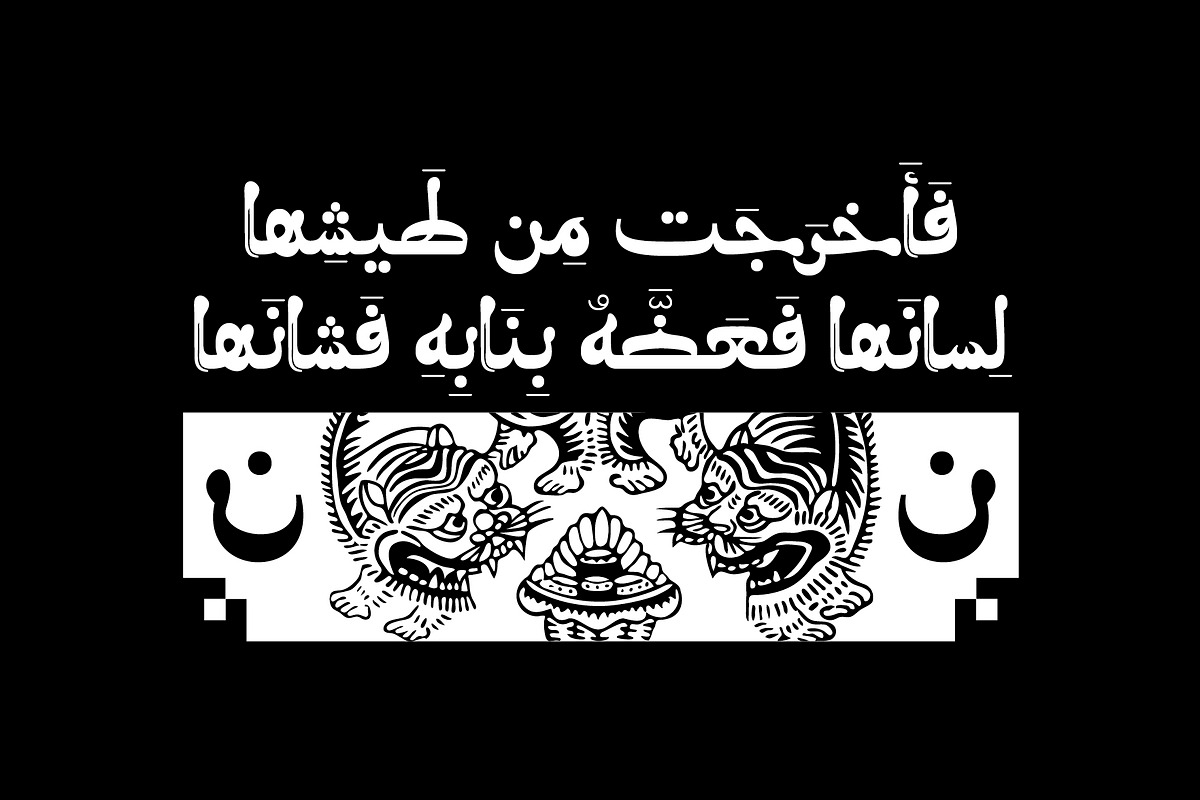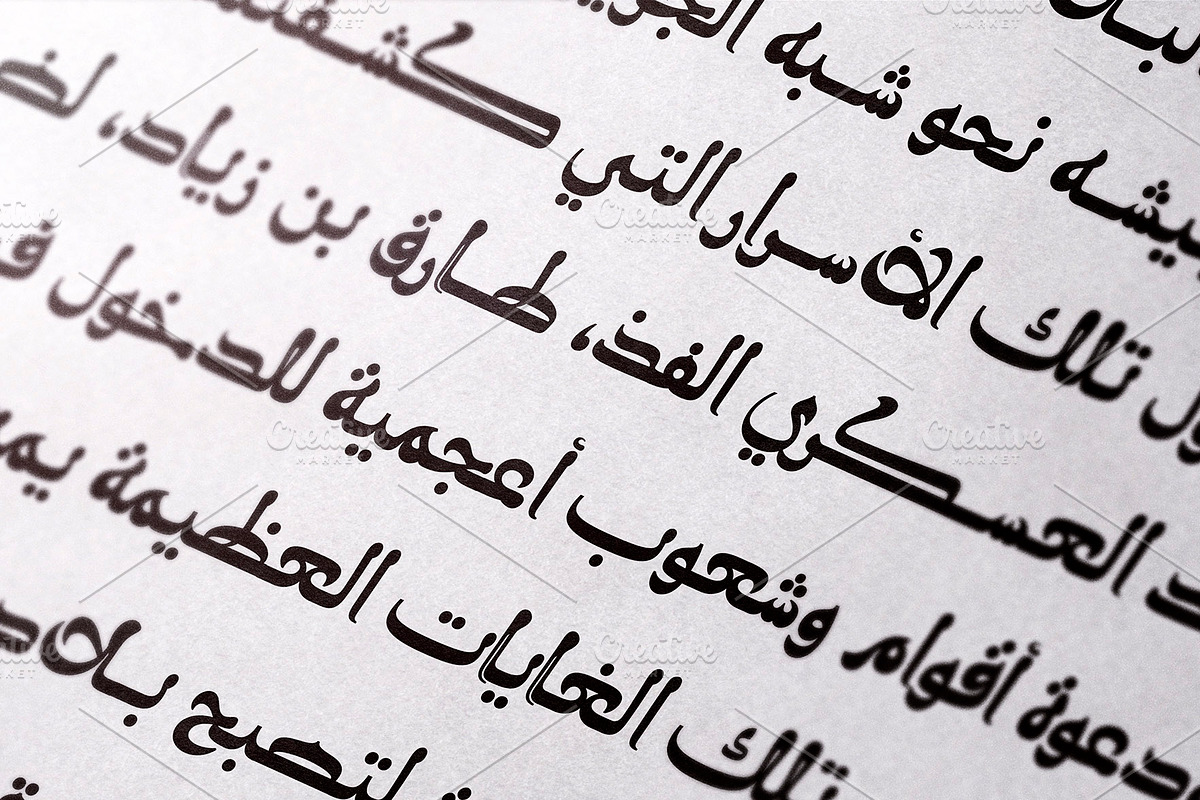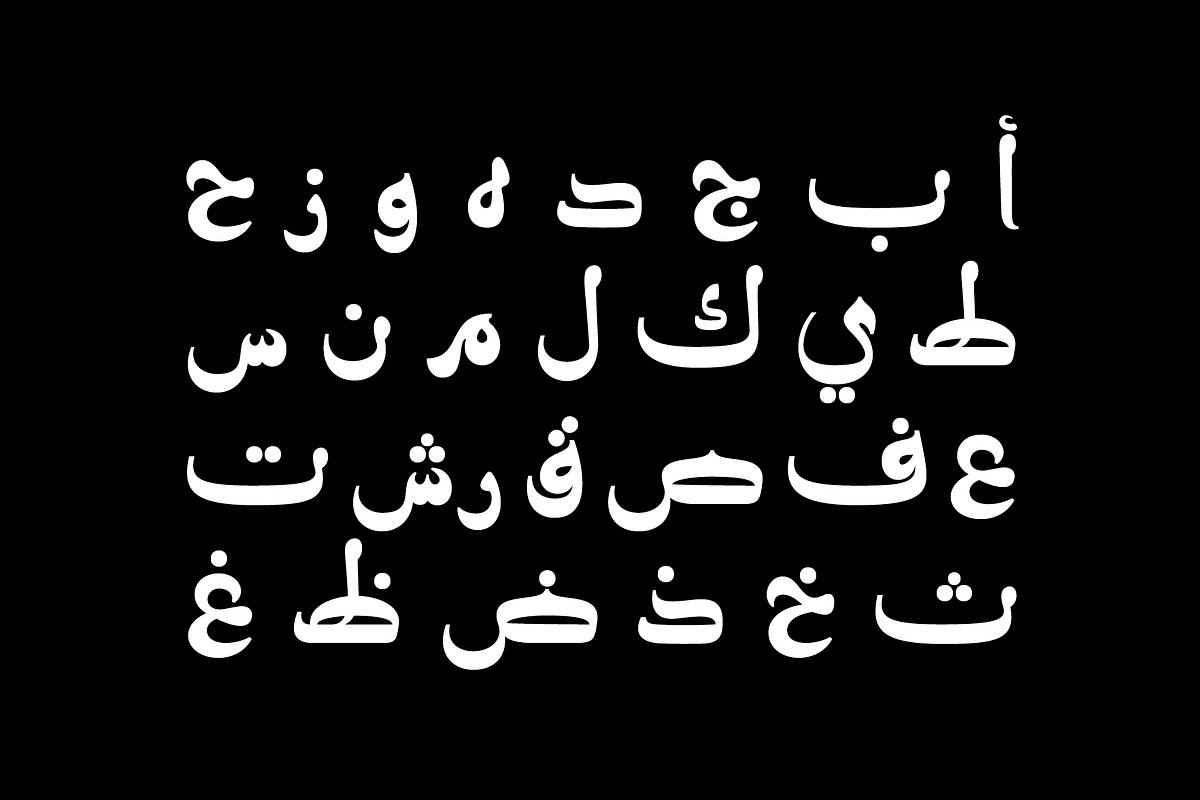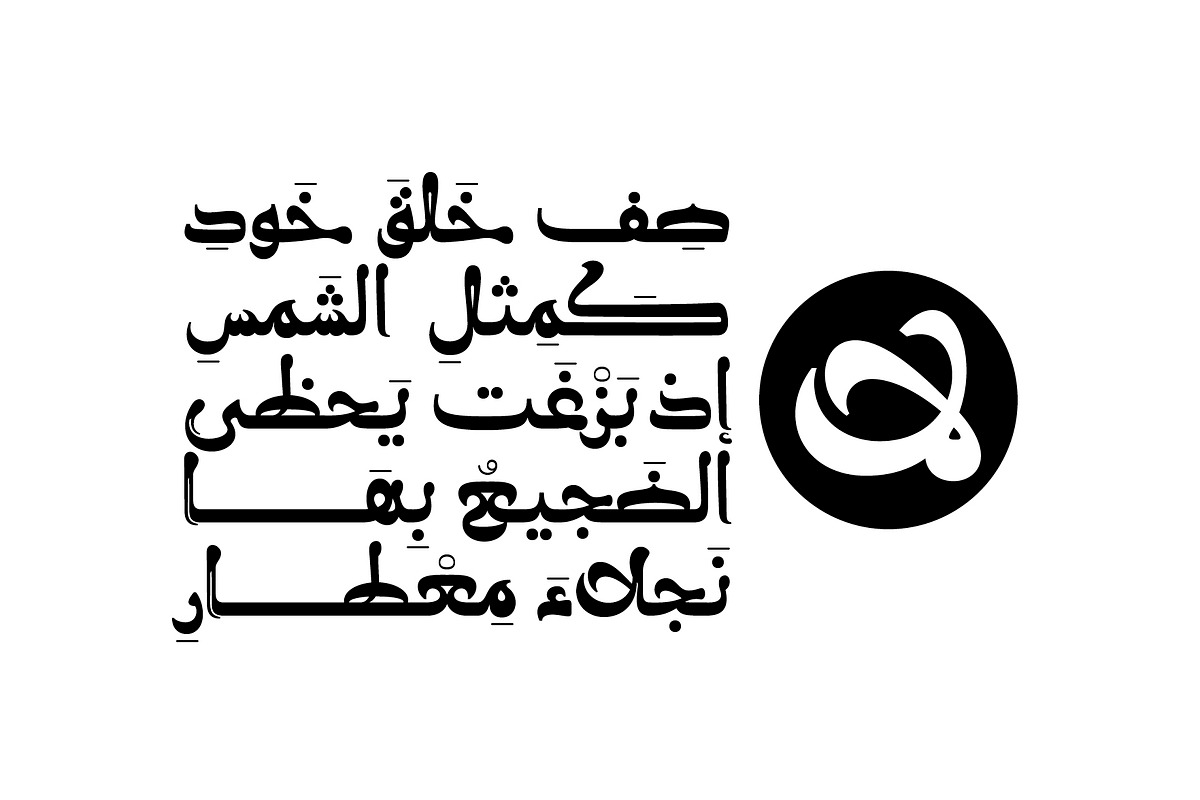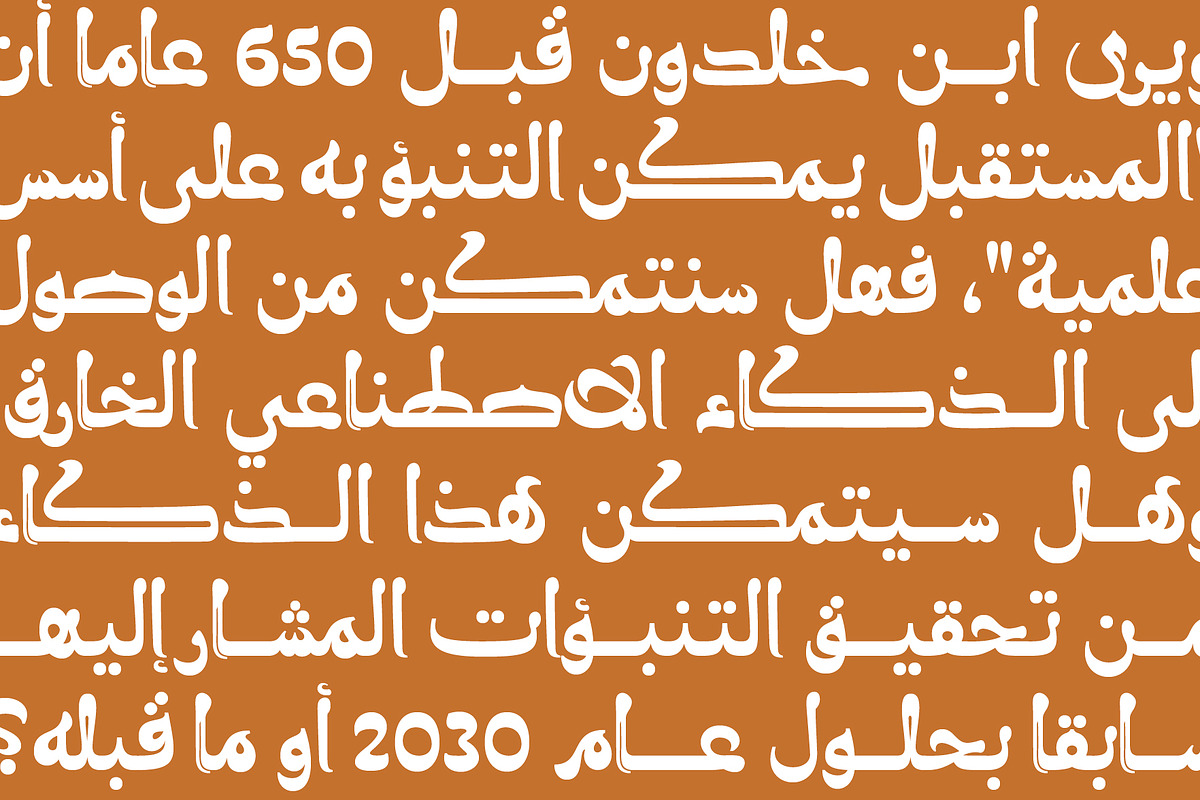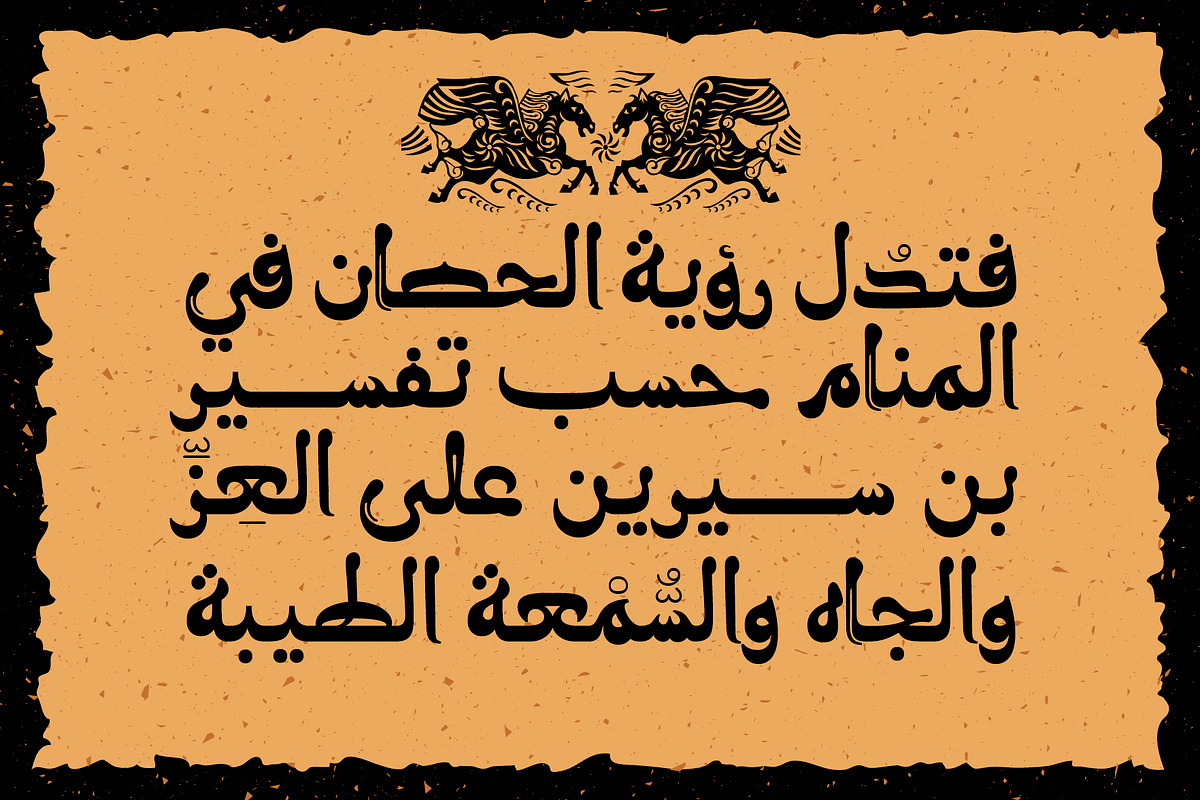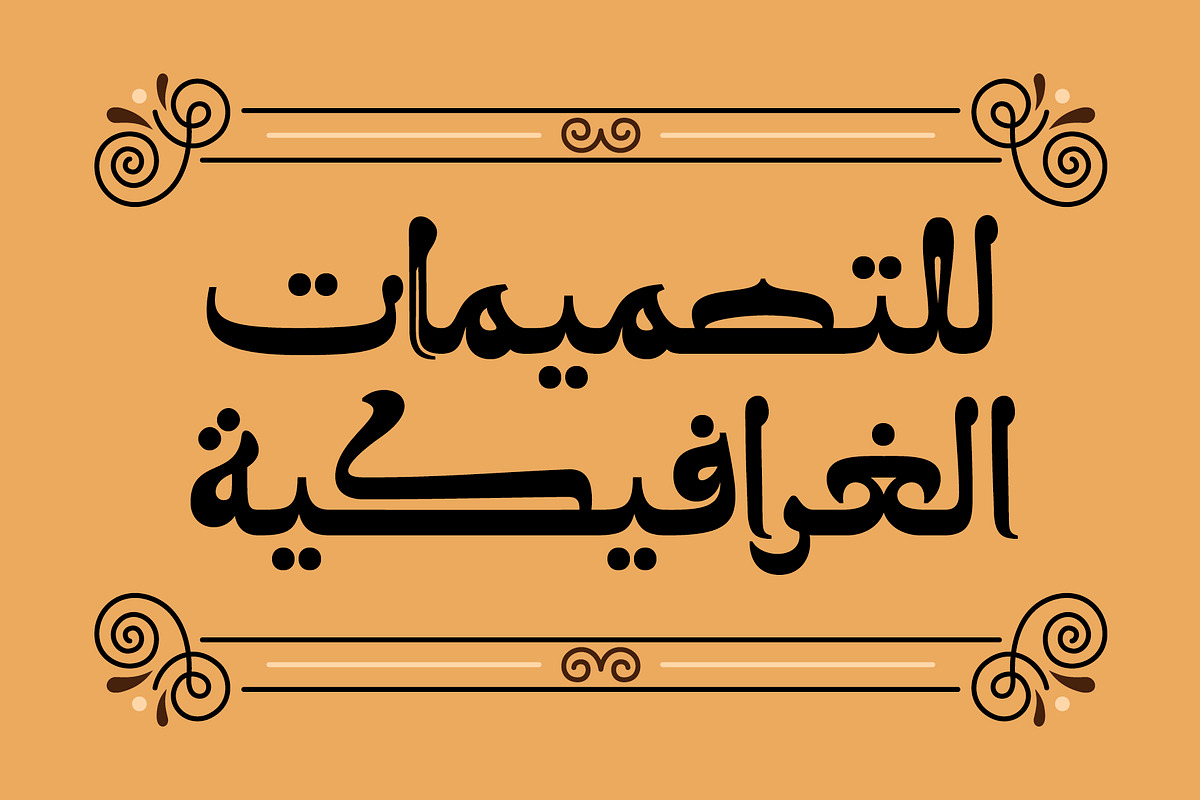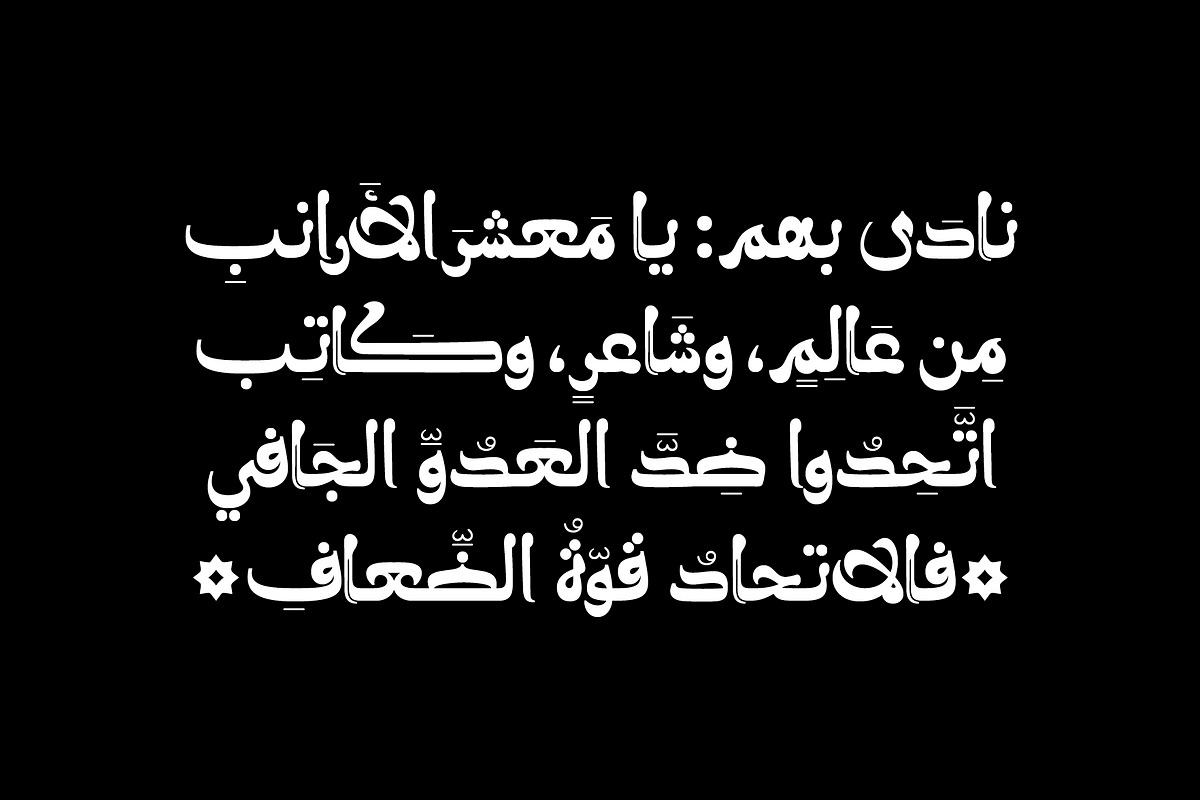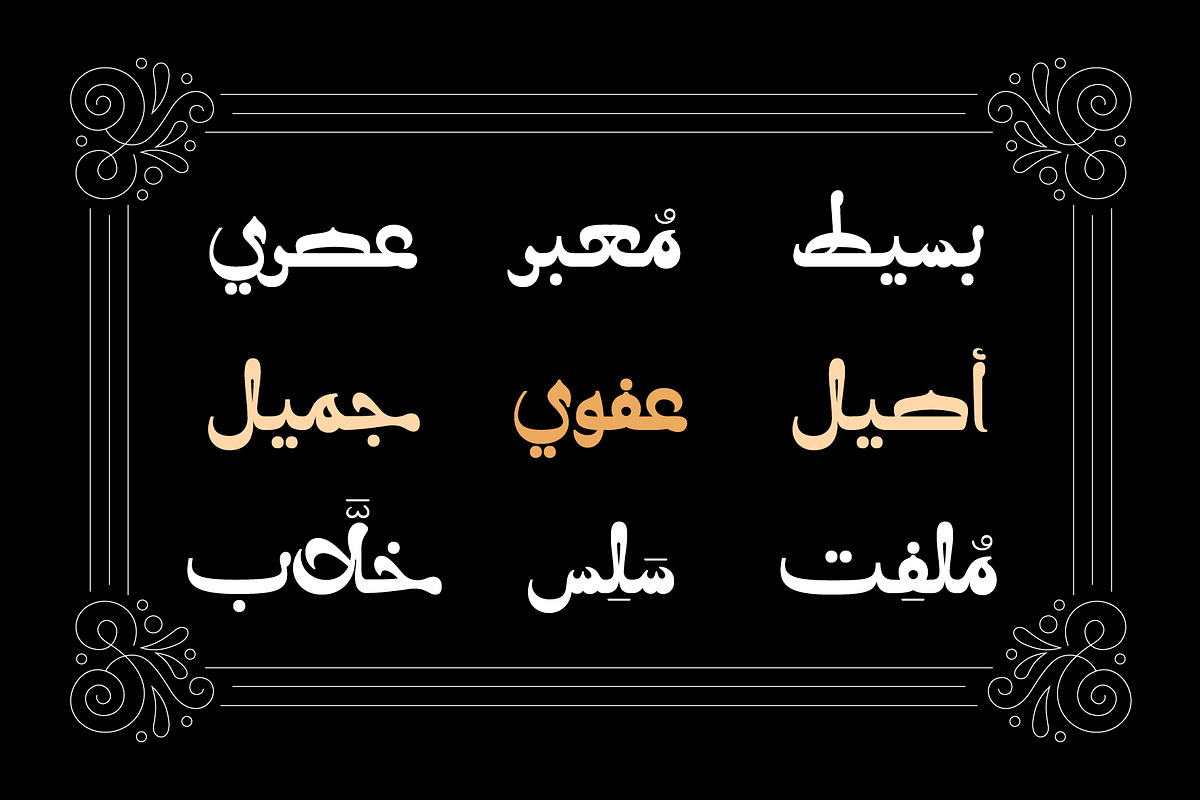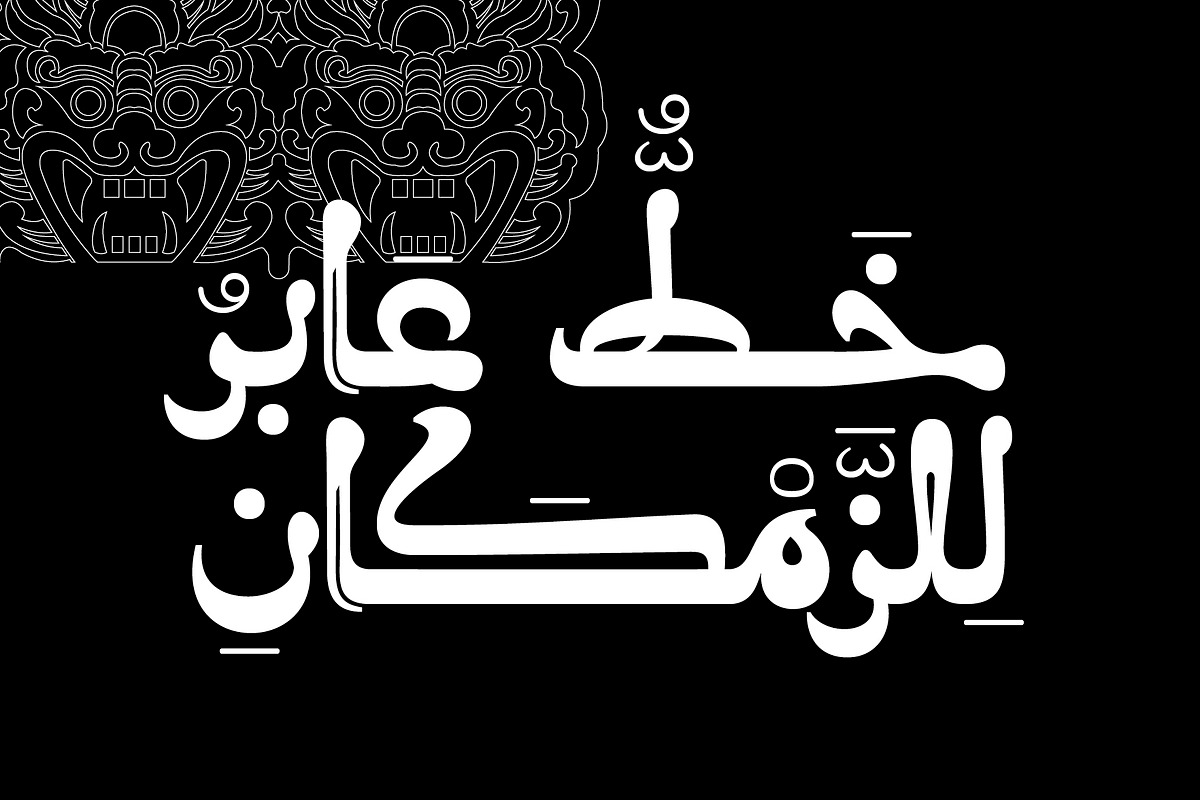
Molan - Arabic Font
Molan (the Arabic for 'softened' or 'suppled') is an Arabic display font that features semi-calligraphic letterform structure. The font design is inspired by the Maghrebi script, blent with some features from the Naskh script. Molan is suitable for modern design projects including web, print, advertising and branding. It is compatible with Windows, Mac and mobile applications.